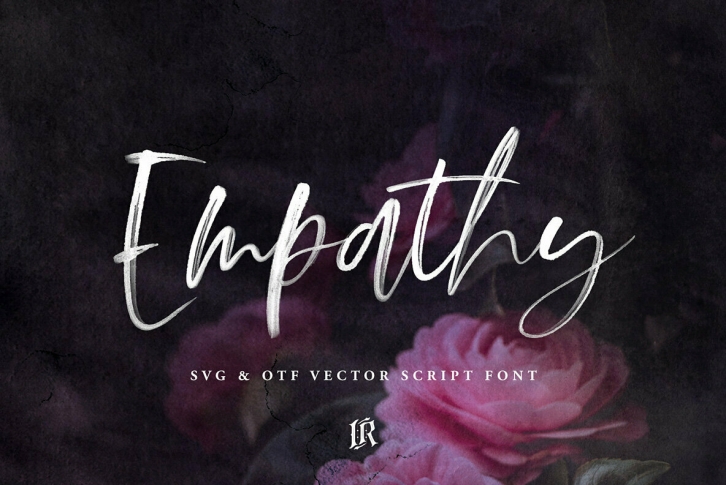
Empathy SVG Font preserves all the high definition detail of the original handwritten letters. Using OpenType-SVG technology it truly looks realistic.